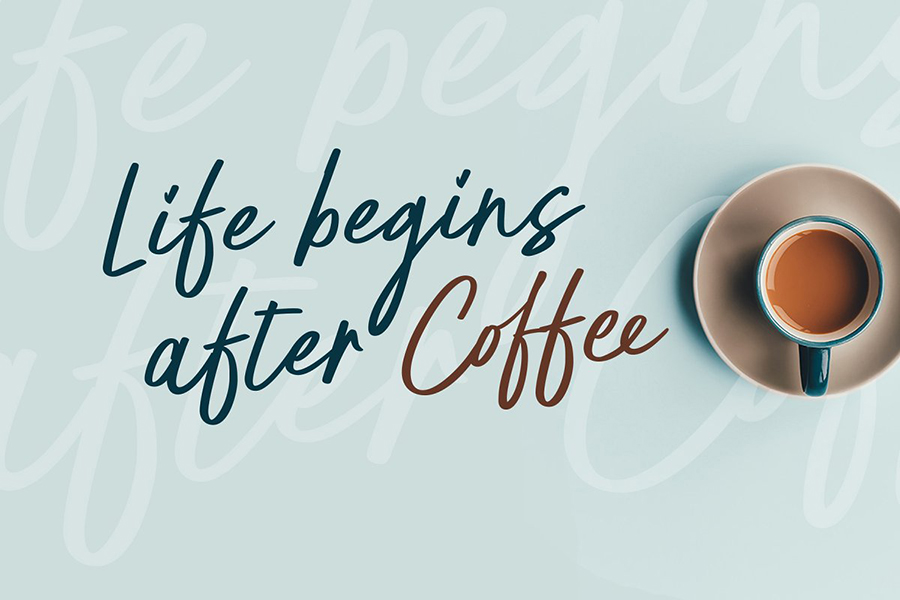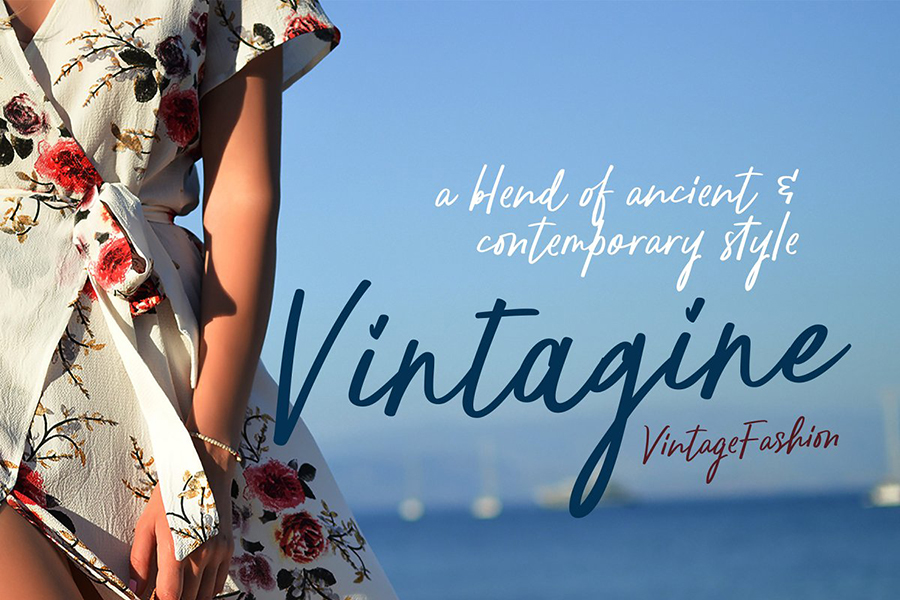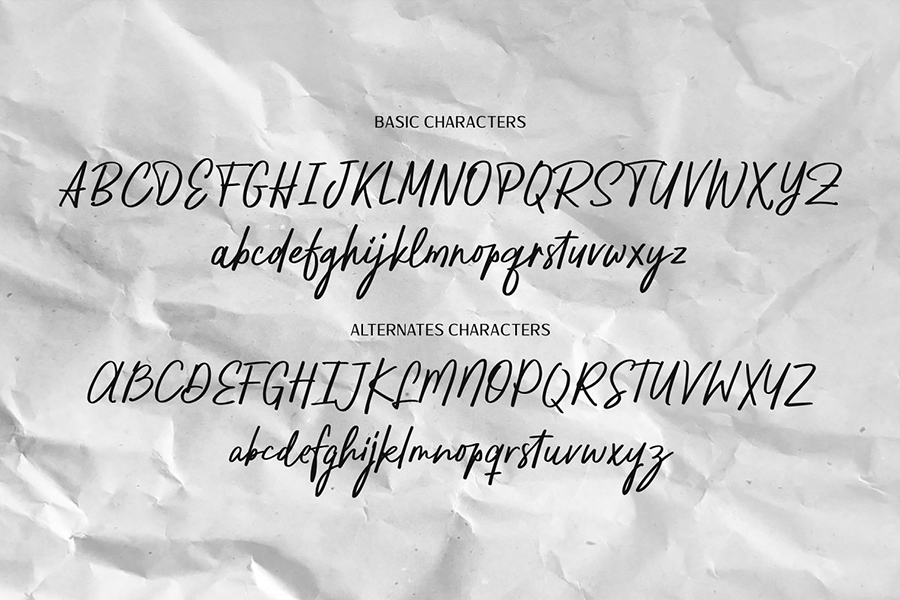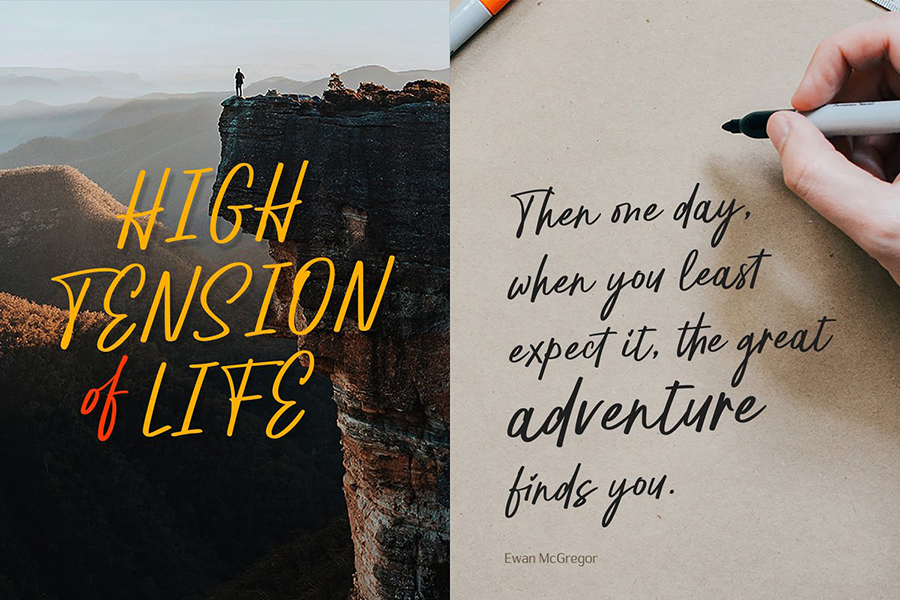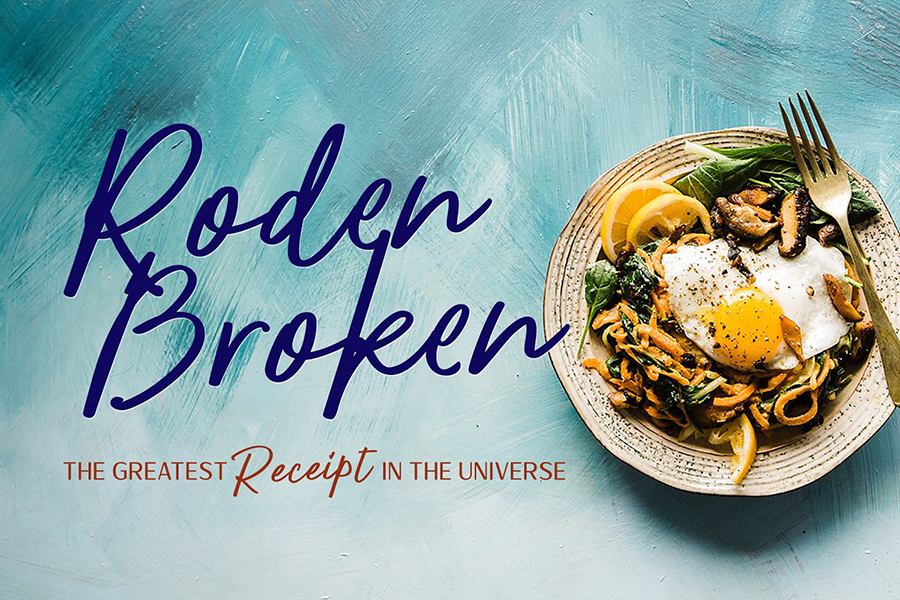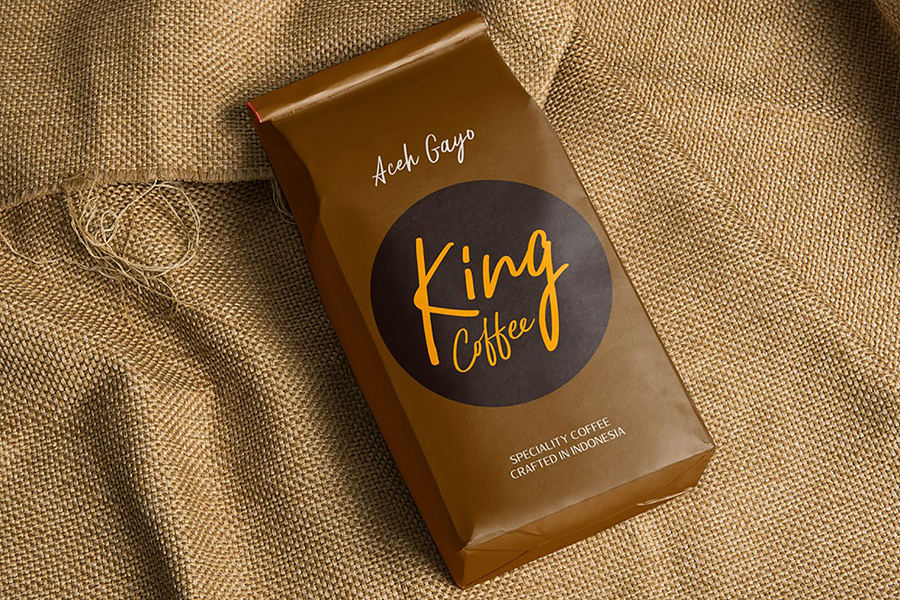
Pestapora Script Free Demo
Pestapora Script Free Demo is a cheerful and spontaneous handwriting font. Based on markers that are designed in such a way as to have an authentic and personal impression but are suitable to be applied to various design needs; posters, headlines, logotype, packaging design, t-shirt, invitation, etc.